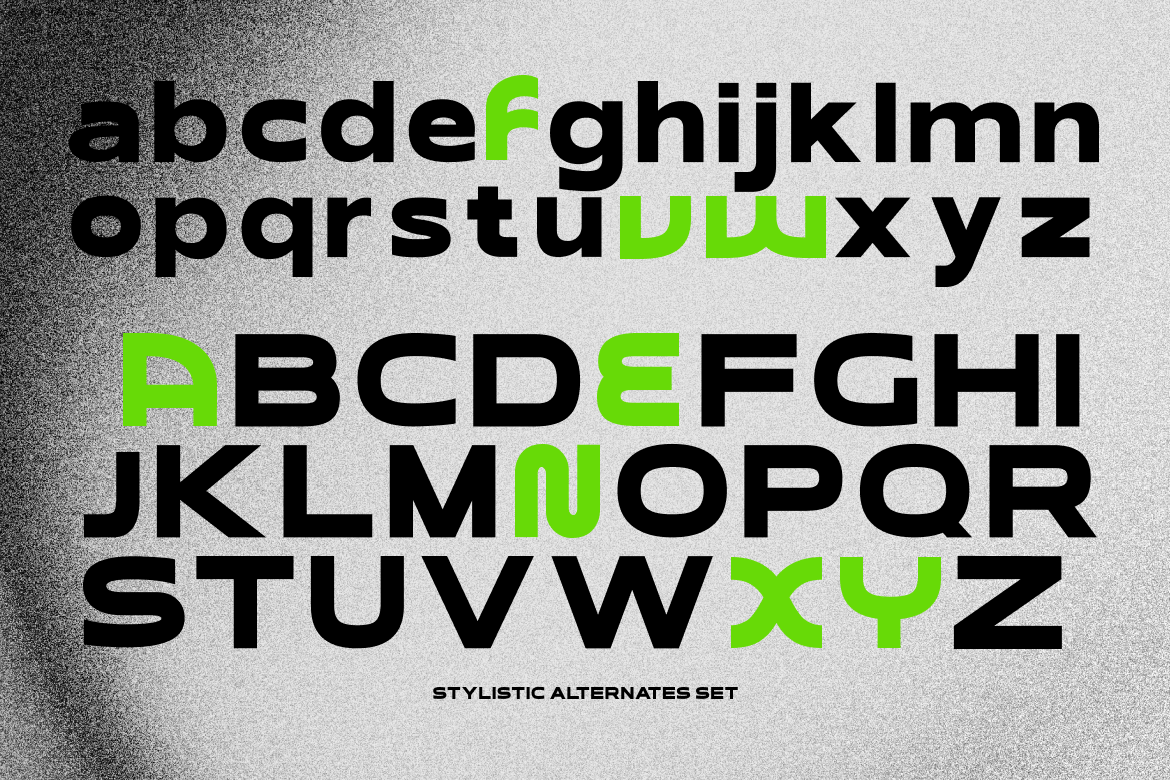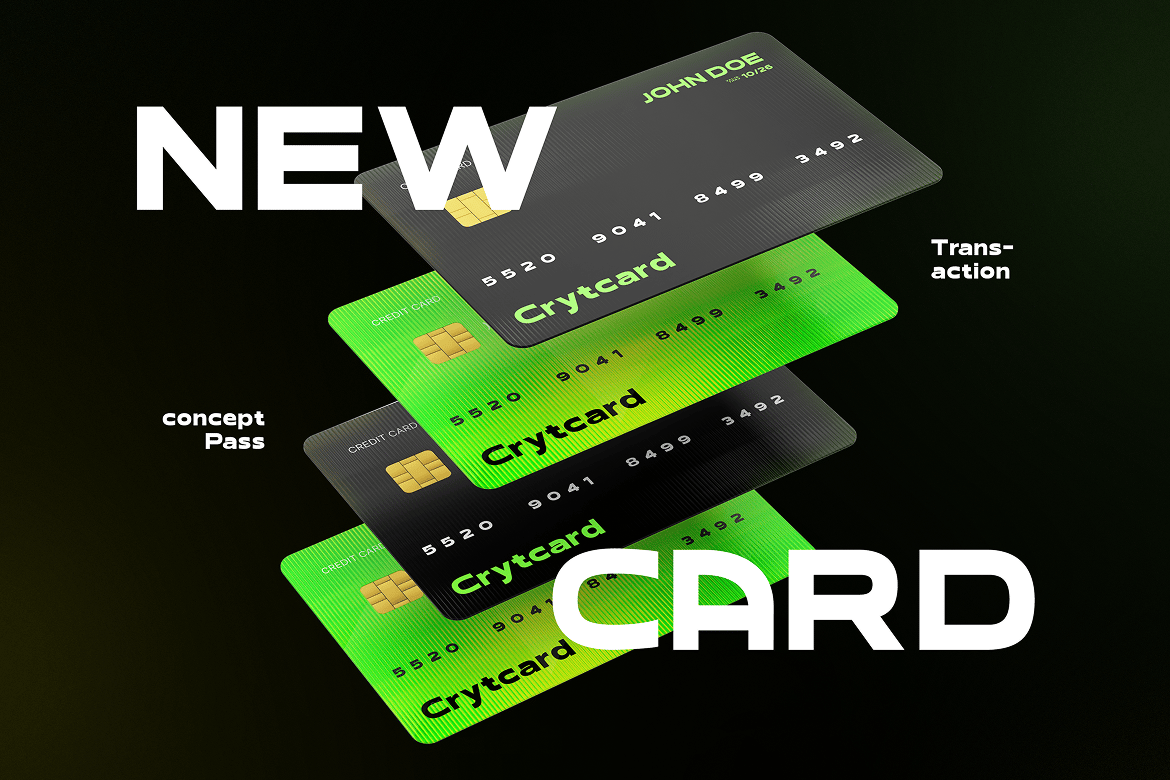
Corify is wide and heavy with near-circular bowls and squared terminals, a combination that looks right at home on a bank card. The specimen’s stylistic alternates set swaps in different forms for letters like f, w and y, and the NEW CARD mock-up shows how solid it looks in white on dark green.
Rasio Studio lists stylistic alternates, directional ligatures and multilingual support, with OTF, TTF and WOFF files in the full version. The free download here includes all three formats. The lowercase is as wide as the caps, so short words carry a lot of presence.
Best uses for Corify
- Fintech and banking app branding
- Tech product launches
- App icons and splash screens
- Posters and social ads
- Sportswear and sneaker brands
Corify is wide, so pair it with something narrower. Inter is clean for UI text. Manrope gives a slightly softer body copy. For numbers and data, JetBrains Mono keeps the techy tone.
Corify Geometric Sans Serif Font